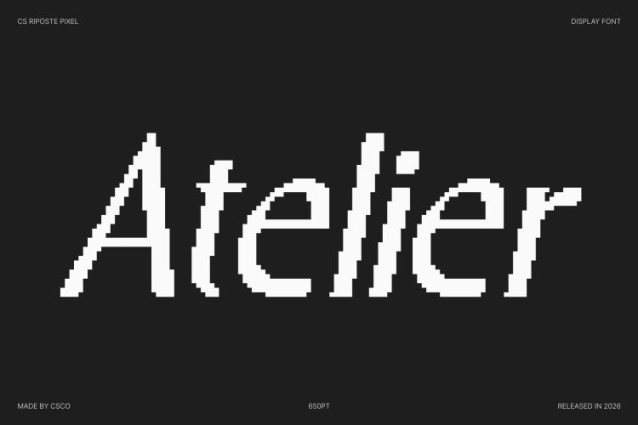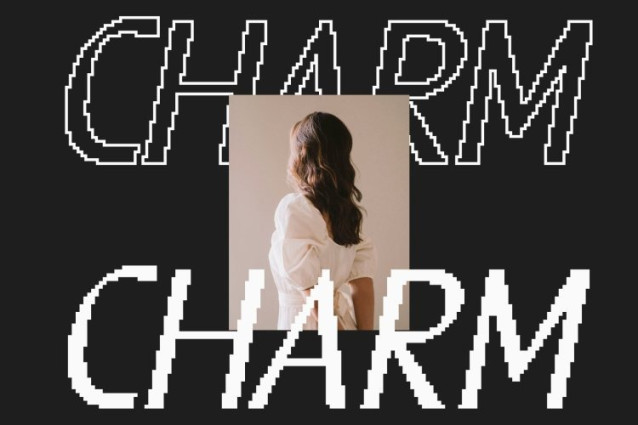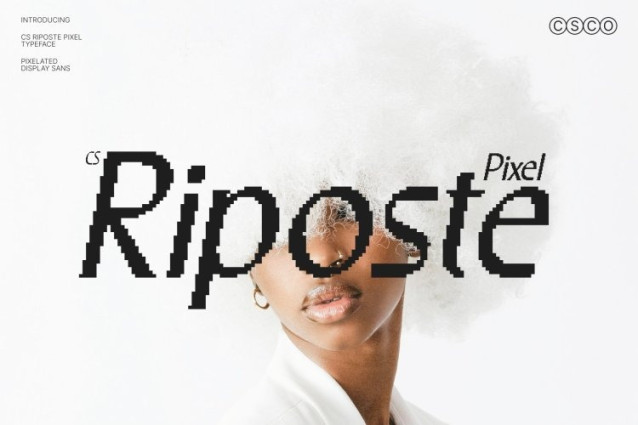
CS Riposte Pixel Font This is a modern sans serif font designed with clean structure and contemporary clarity, enhanced by a subtle pixel-inspired character. Its balanced proportions and refined construction create a professional appearance that feels fresh, stylish, and visually confident. The pixel touch adds a digital personality that makes the font feel modern while nodding to retro screen aesthetics.
Clean Letterforms with Tech-Inspired Appeal
Built on simplicity and precision, features smooth lines, consistent stroke weight, and carefully spaced letterforms. The pixel styling introduces a crisp, screen-ready look that feels sharp and intentional. This combination ensures excellent readability while giving the font a distinctive digital presence that stands out in modern layouts.
Professional Style with Flexible Digital Character
This font balances professionalism with creative freedom. Its clean sans serif foundation communicates clarity and trust, while the pixel influence adds a relaxed, contemporary edge. This makes it ideal for designers seeking a font that feels structured yet expressive, suitable for both minimal designs and experimental digital compositions.
Perfect for Branding, Editorials, and Retro-Digital Projects
Designed for versatile modern use, works beautifully for branding, editorials, posters, UI design, and creative digital projects. Its fresh clarity and pixel-driven aesthetic make it especially eye-catching for digital content, tech branding, and designs inspired by old technology or modern screen culture.